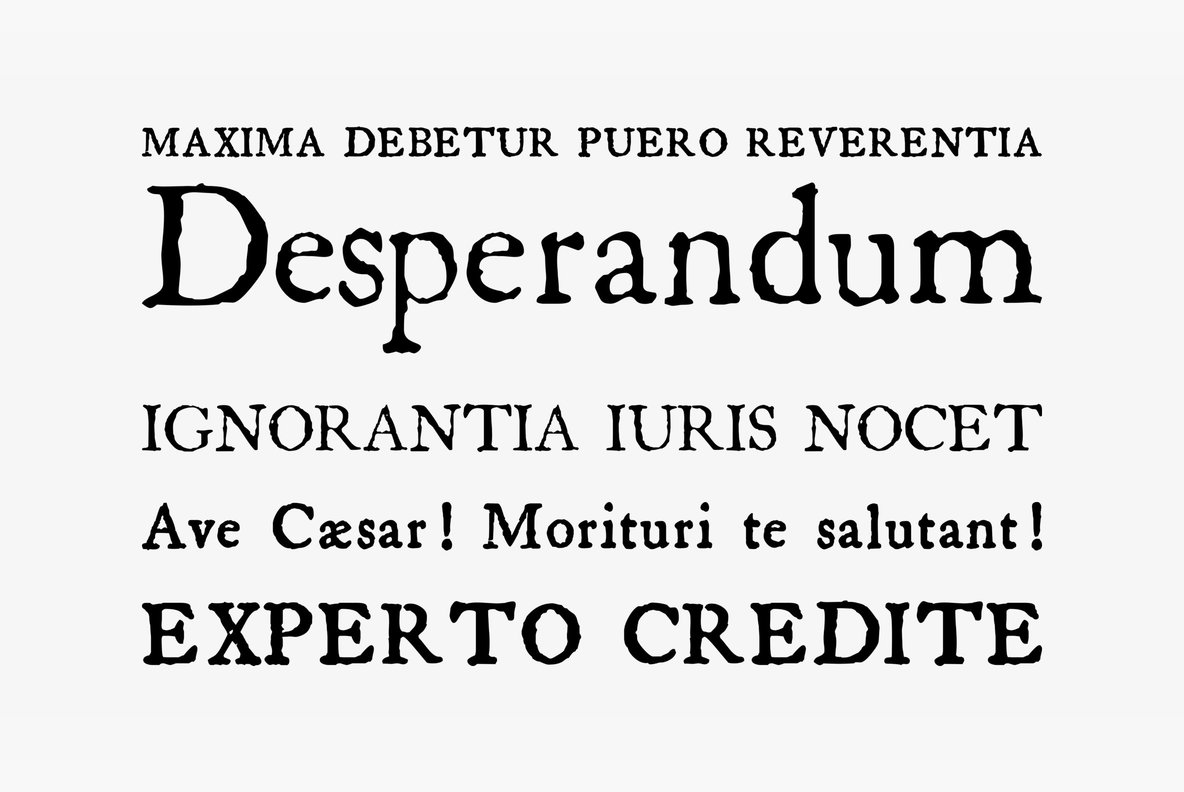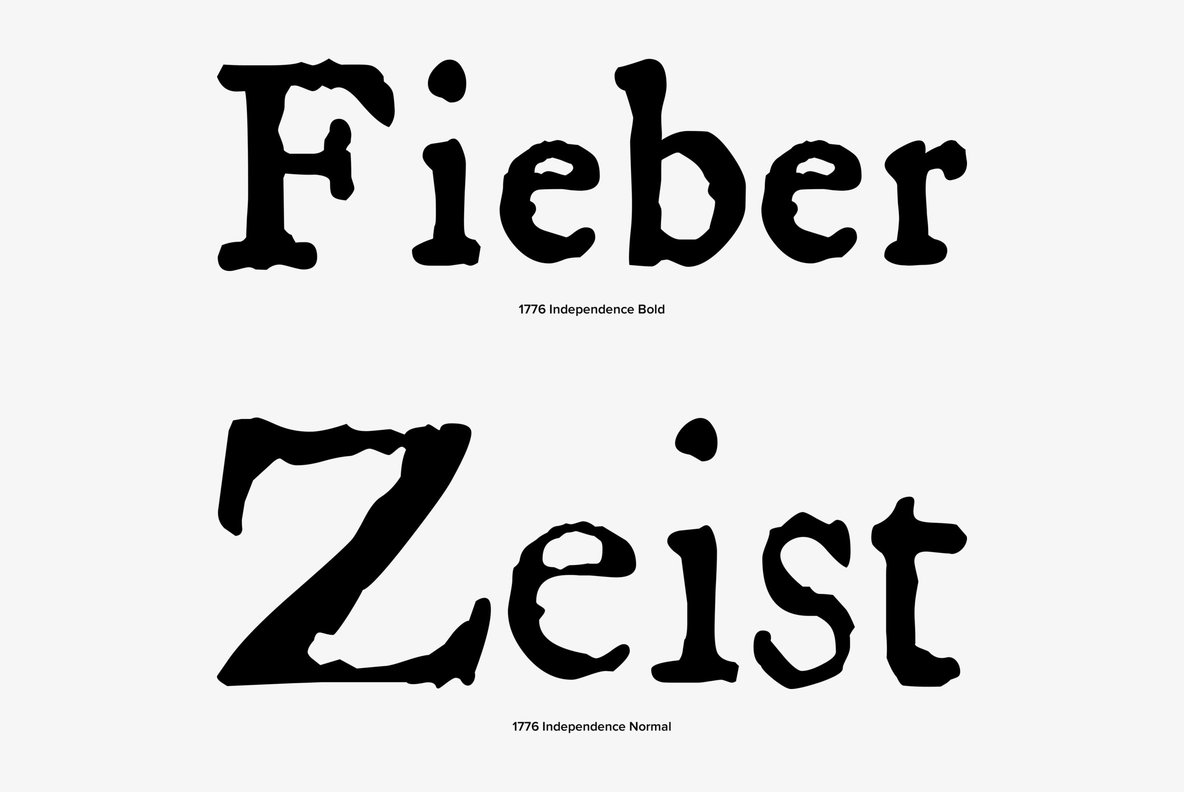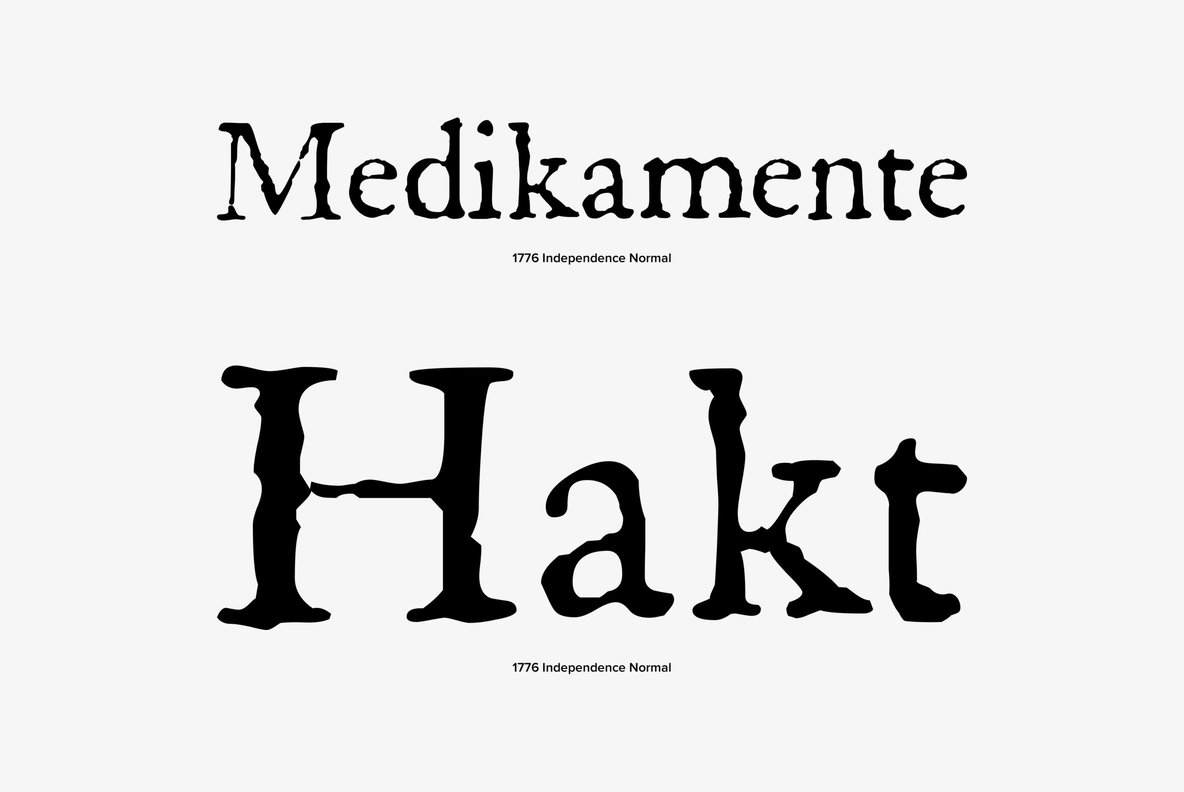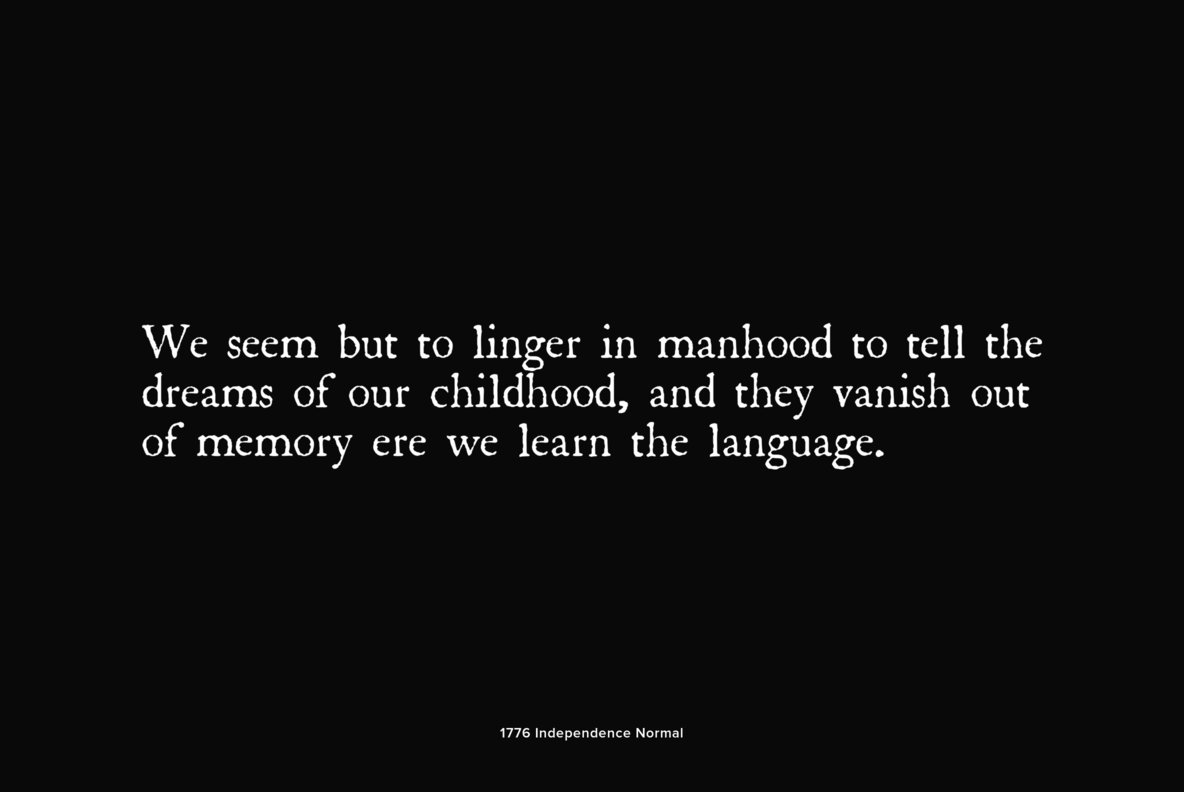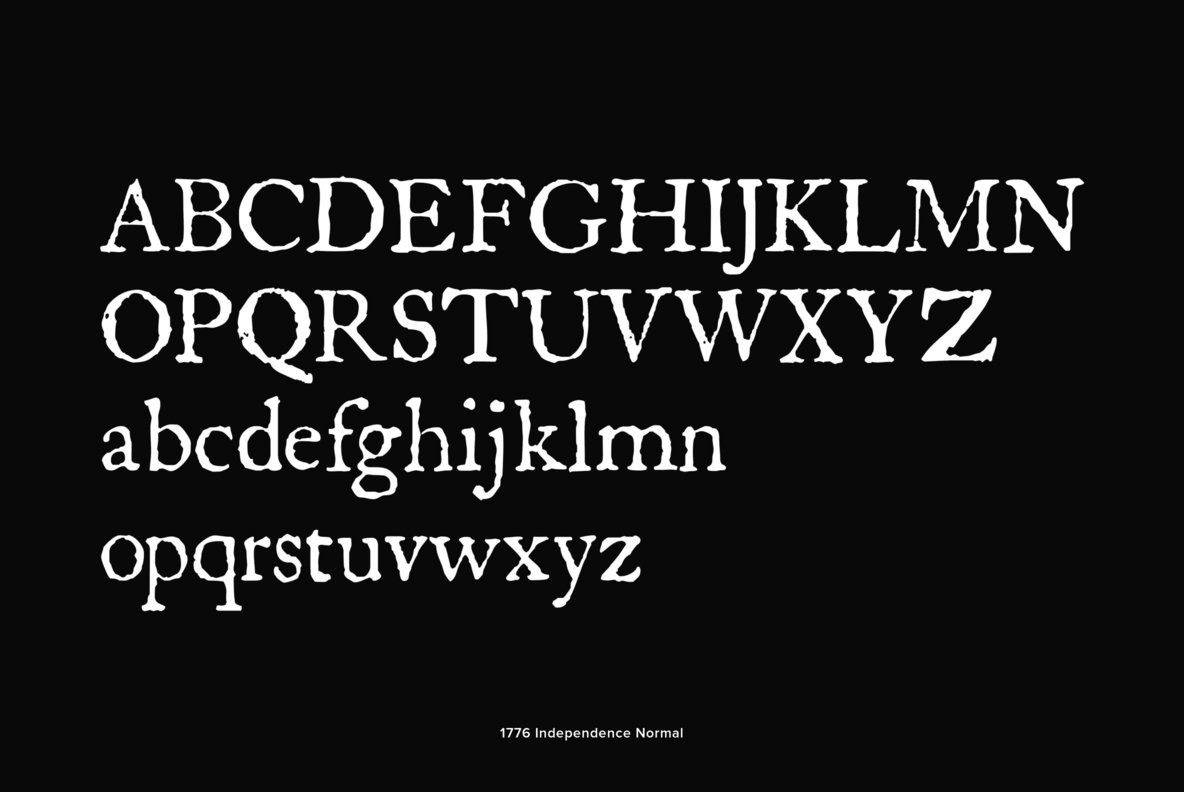
1776 Independence was designed inspired mainly from the font used by John Dunlap in the night of 1776 July 4th in Philadelphia to print the first 200 sheets of the Congress' Declaration of Independence establishing the United States of America. I just added accented letters and a few others, with respect for the original design.
It can be used as web-site titles, posters and fliers, editing ancient texts, menus or greeting cards as a very decorative font...